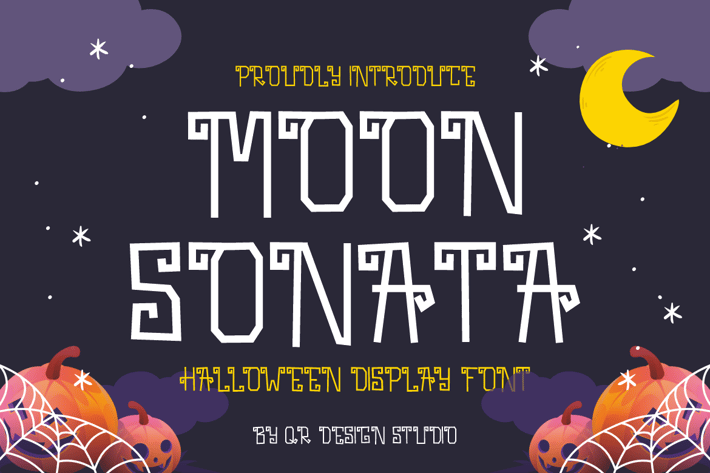
Moon Sonata - Halloween Font
Moon Sonata - Halloween Font is a bold and authentic display font.
The font is suitable for any branding project like logo, halloween, poster, scary, sport, and many more.